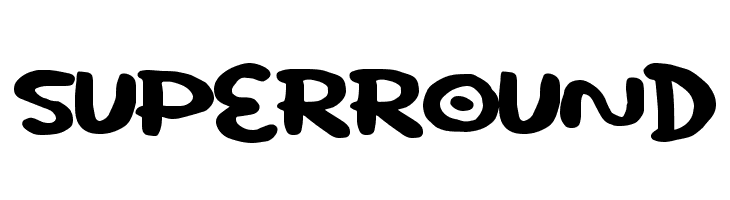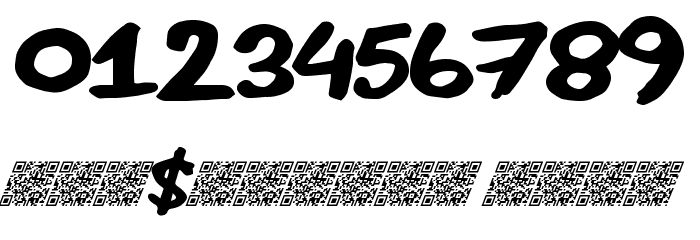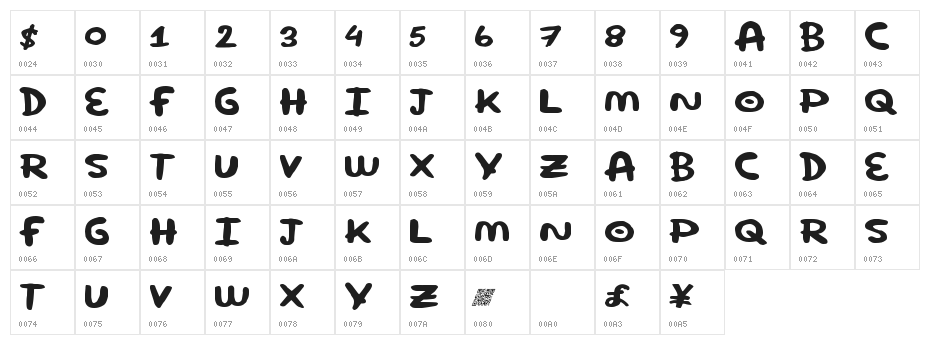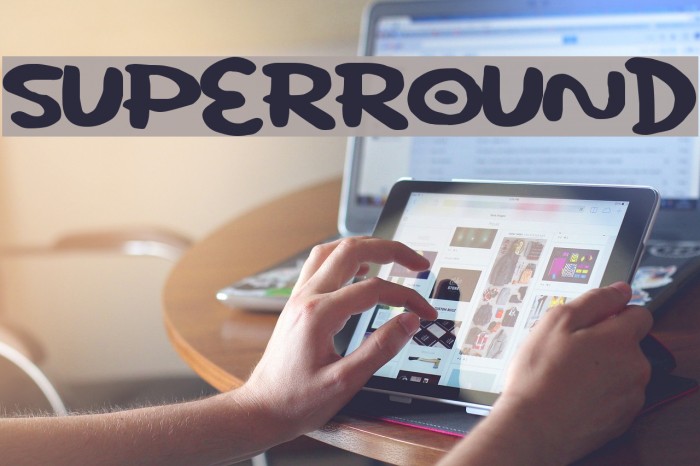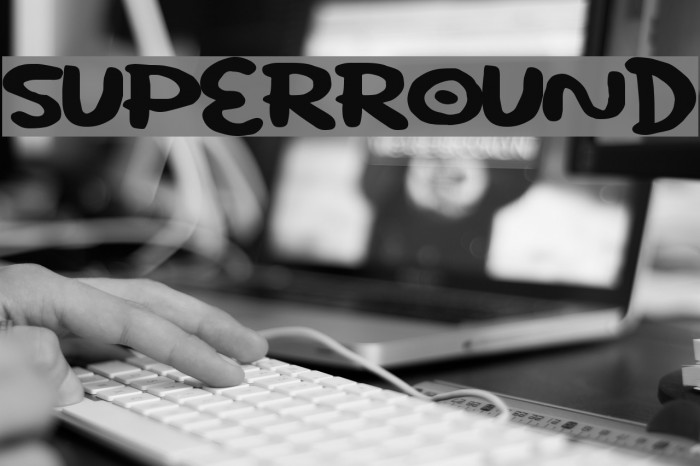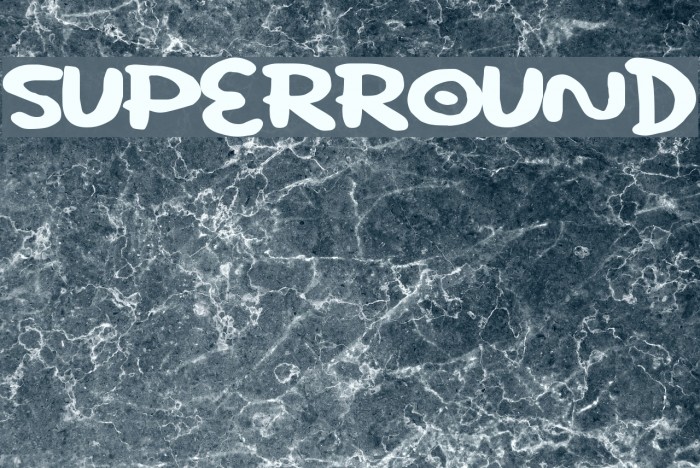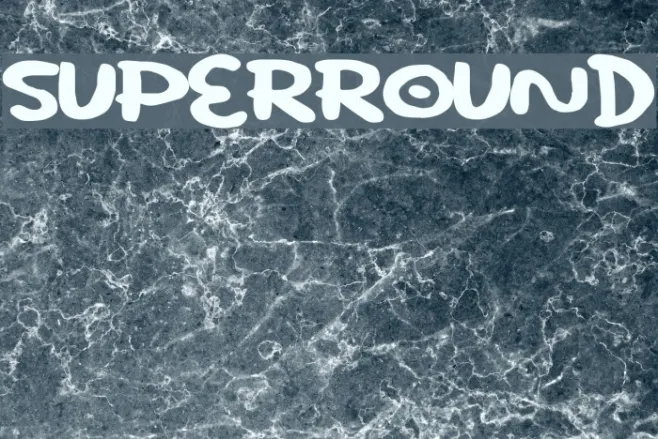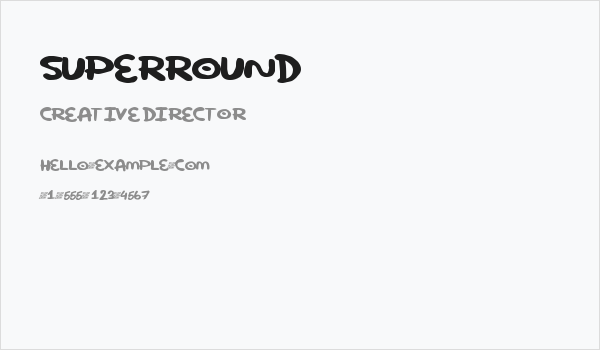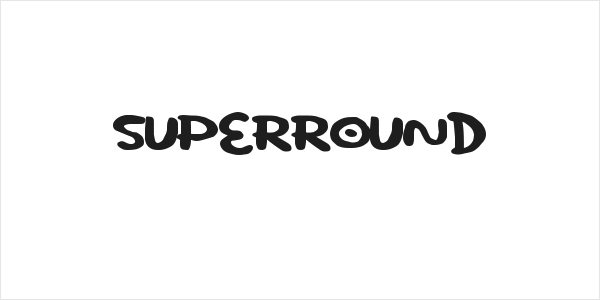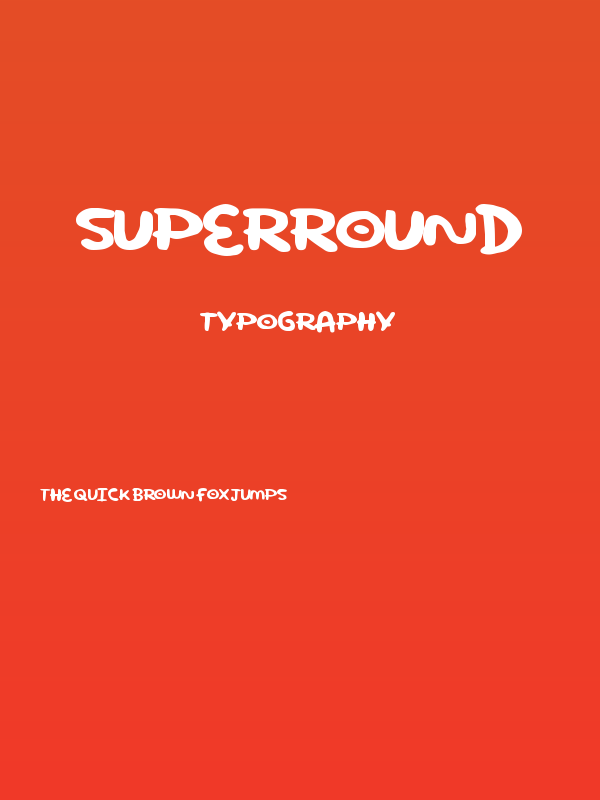
SuperRound Font
SuperRound Description
This font features a playful and rounded style, characterized by its bold and smooth curves. The letters are uniformly thick, giving it a consistent and friendly appearance. The rounded edges and lack of sharp angles contribute to its approachable and informal feel. This style is reminiscent of handwritten or marker fonts, making it suitable for casual and fun applications. The numbers and special characters maintain the same rounded and bold characteristics, ensuring a cohesive look across all characters. Its design is both eye-catching and easy to read, making it versatile for various design needs.
| Proposed Projects | Ideal for children's books, playful branding, casual invitations, and social media graphics. |